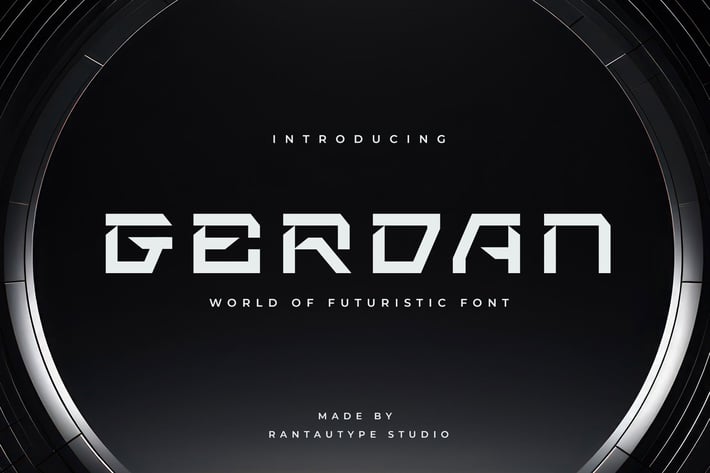
Gerdan Tech Futuristic Font
Gerdan is world of futuristic font with memoriable shape. This font take a futuristic visual design concept with strong shape and
sophisticated world technology era.
Gerdan is a perfectly choice for any creative endeavor, chic, lifestyle design such as logos, advertisements, stationery, branding project, display and magazine, invitation, corporate brand, product design, label, business project and many other project with futuristic touch.
Alternate and Ligature